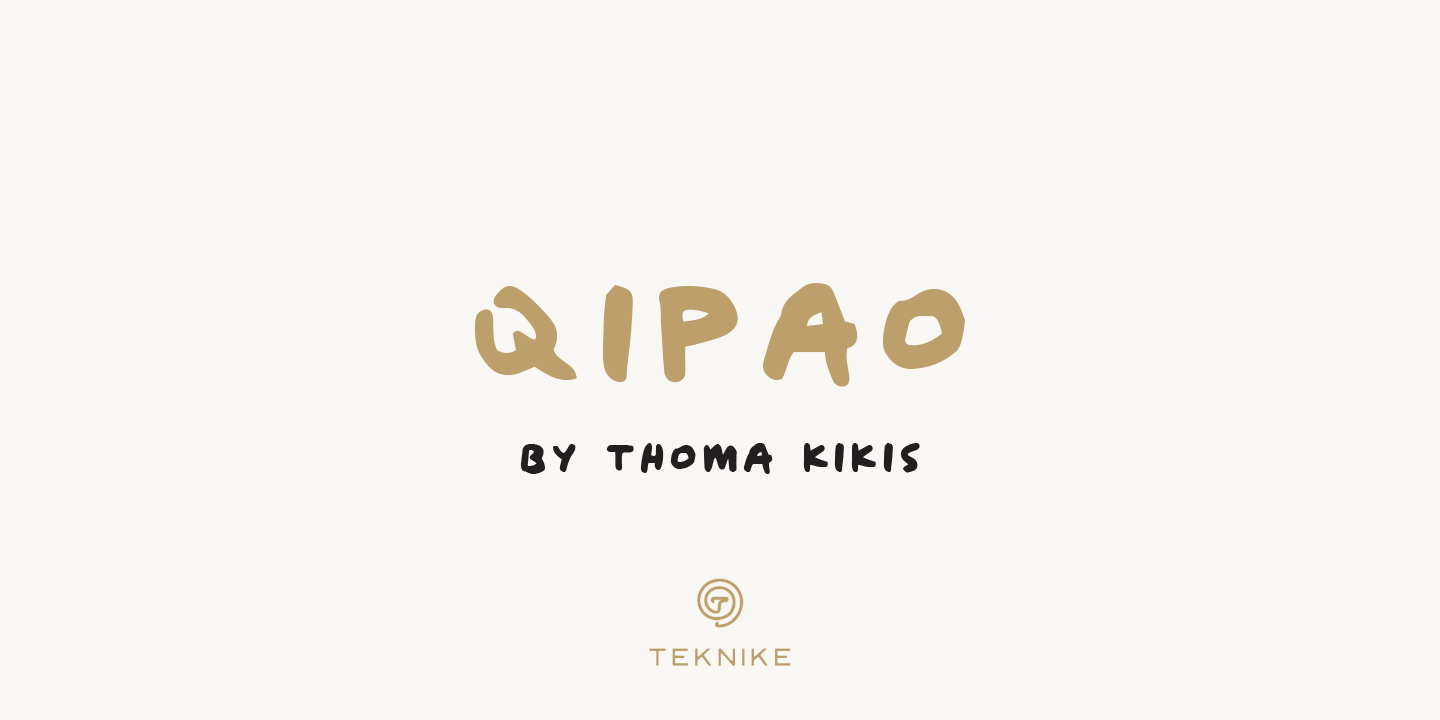
Qipao Font is perfect for Asian fashion brands, traditional Chinese restaurant menus, cultural event promotions, Eastern-inspired luxury packaging, tea house signage, authentic Chinese calligraphy projects, oriental art exhibitions, Asian wedding invitations, heritage brand identities, and elegant East-meets-West marketing communications.
Qipao Font is exciting because it gracefully captures the timeless elegance of traditional Chinese fashion with its silk-smooth letterforms that flow like the luxurious fabric of a classic qipao dress, embodying centuries of refined Eastern aesthetics. Its sophisticated character design bridges ancient Chinese artistic traditions with contemporary design sensibilities, creating a distinctive voice that honors cultural heritage while speaking to modern global audiences seeking authentic beauty.
Qipao Font family includes light, regular, medium, bold, and black weights, each with corresponding italic versions. The font family also features traditional Chinese ornaments, oriental decorative elements, silk-inspired ligatures, and cultural symbols that enhance its authentic Eastern aesthetic and versatility.
This culturally-rich typeface represents the perfect harmony between Eastern tradition and contemporary elegance. Qipao Font Free Download allows designers to explore its cultural sophistication before making a commercial commitment. The font's ability to convey both cultural authenticity and modern refinement makes it ideal for brands seeking to honor Asian heritage while appealing to international audiences.
Whether you're developing Asian-inspired brand identities, creating cultural celebration materials, or designing luxury East-meets-West communications, Qipao Font brings an unmistakable sense of traditional elegance and cultural sophistication to every project. Its graceful character and Eastern heritage create powerful connections that resonate with audiences appreciating authentic cultural beauty and timeless style.
The font's versatility excels in cultural and luxury environments where tradition and elegance are equally valued. Its oriental character makes it particularly effective for Asian restaurants, cultural institutions, luxury fashion brands, and international businesses seeking to establish respectful, authentic connections with Asian communities and culture enthusiasts.
For designers working on projects requiring genuine Eastern elegance and cultural authenticity, Qipao Font provides an exceptional solution. Its traditional presence and comprehensive oriental elements offer the tools needed for creating truly respectful cultural communications, while its silk-like sophistication ensures your designs capture the exquisite beauty and refined grace that defines traditional Chinese aesthetic excellence.